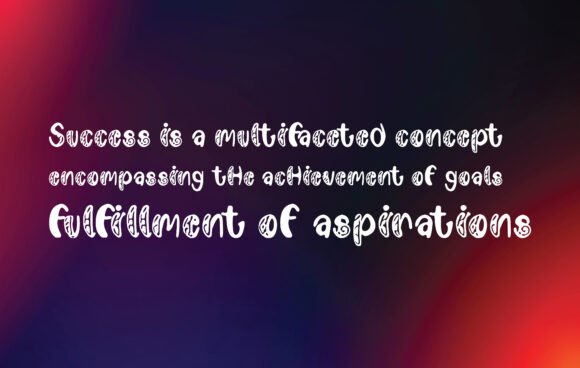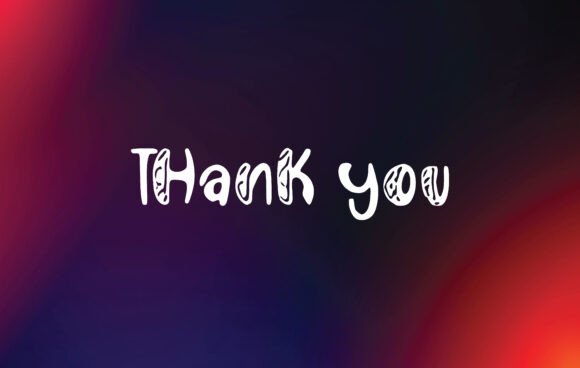
Introducing Buttercup Font: Elevate Your Designs with Elegance
In the world of typography, a font can make all the difference in bringing your creative ideas to life. If you’re a designer, crafter, or simply someone who appreciates beautiful handwriting, then you’re in for a treat. Say hello to Buttercup Font, a lovely and beautiful handwritten font that’s sure to take your designs to the highest level.
What Makes Buttercup Font Special?
Buttercup Font is more than just a pretty face. It’s a versatile and elegant typeface that’s perfect for a wide range of design projects. Whether you’re looking to create eye-catching logos, branding materials, or inspiring quotes, Buttercup Font is the best choice. Its unique, handwritten charm adds a touch of warmth and personality to any design, making it stand out from the crowd.
Key Features of Buttercup Font
- Handwritten Elegance: Buttercup Font boasts a beautiful, handwritten style that’s both elegant and approachable.
- Versatility: Use it for logos, branding, quotes, and more – the possibilities are endless!
- Easy to Read: Despite its elegant nature, Buttercup Font remains highly legible, making it perfect for both digital and print applications.
- Unique Character: Each letter has been carefully crafted to ensure that your designs stand out with a personal touch.
Why Choose Buttercup Font?
With so many fonts available, why should you choose Buttercup Font for your next project? Here are a few compelling reasons:
- Creativity Unleashed: Buttercup Font is designed to inspire creativity. Its unique style will spark your imagination and help you create designs that are truly one-of-a-kind.
- Professional Results: Despite its handmade look, Buttercup Font gives off a professional vibe that’s perfect for high-end branding and marketing materials.
- Time-Saving: With Buttercup Font, you don’t have to spend hours trying to find the perfect handwritten font. It’s ready to use, right out of the box.
How to Use Buttercup Font in Your Designs
Using Buttercup Font in your designs is incredibly straightforward. Here are a few tips to get you started:
- Pair it with Other Fonts: Combine Buttercup Font with complementary fonts to create stunning contrast and visual interest.
- Experiment with Colors: The right color scheme can elevate your design to new heights. Try pairing Buttercup Font with pastel shades or bold, bright hues.
- Play with Sizes: Don’t be afraid to experiment with different font sizes. Buttercup Font looks great in both large and small sizes.
Who Can Benefit from Buttercup Font?
Buttercup Font is perfect for a wide range of designers and crafters, including:
- Graphic Designers: Add a touch of elegance to your branding, logos, and marketing materials.
- Crafters: Use Buttercup Font to create beautiful handmade cards, invitations, and DIY projects.
- Digital Artists: Bring your digital art to life with the unique, handwritten charm of Buttercup Font.